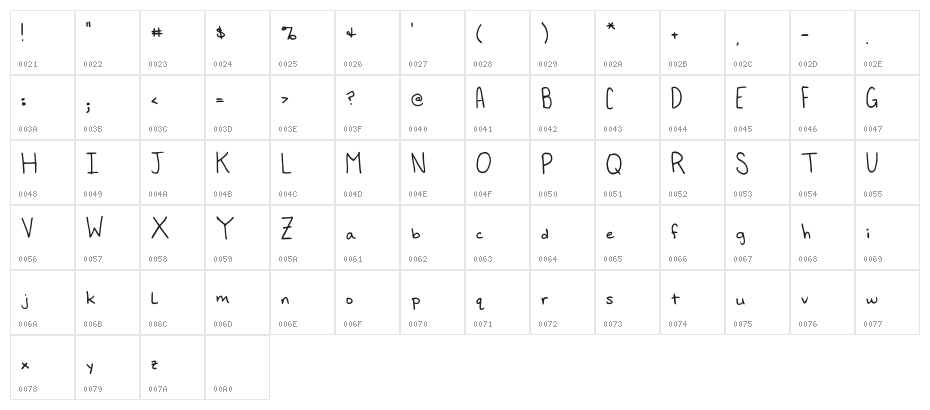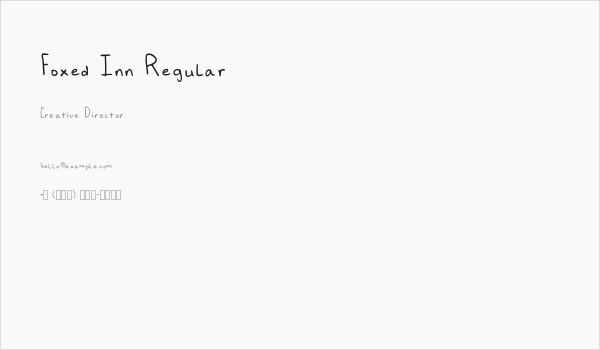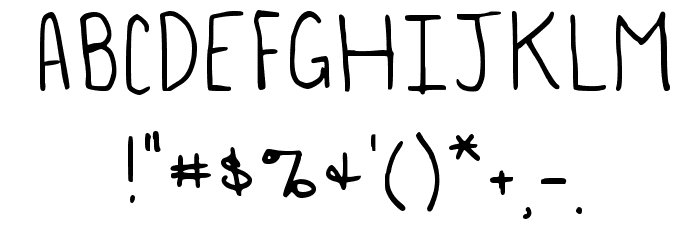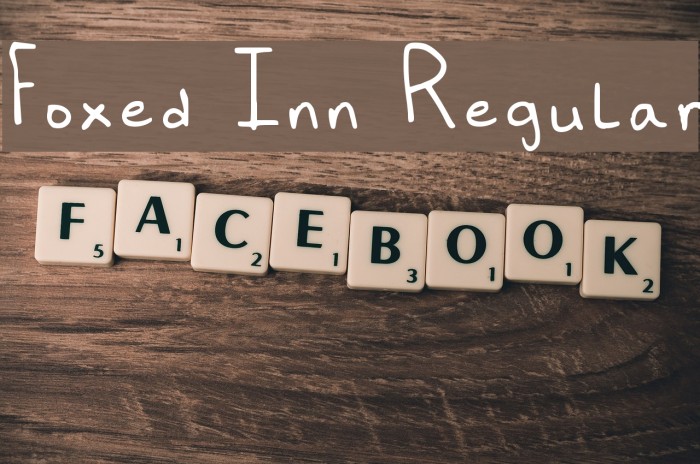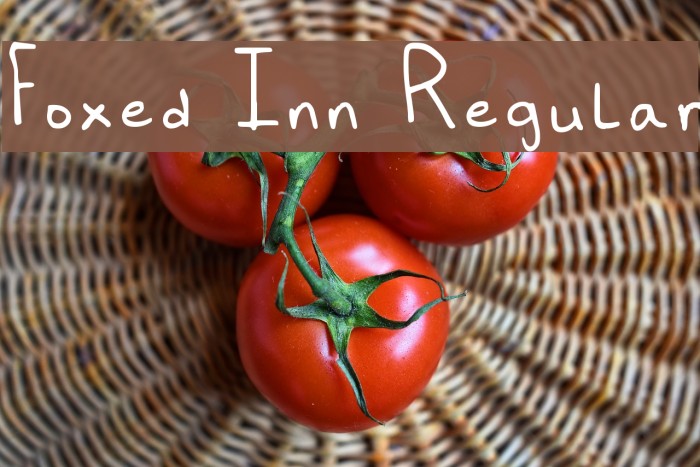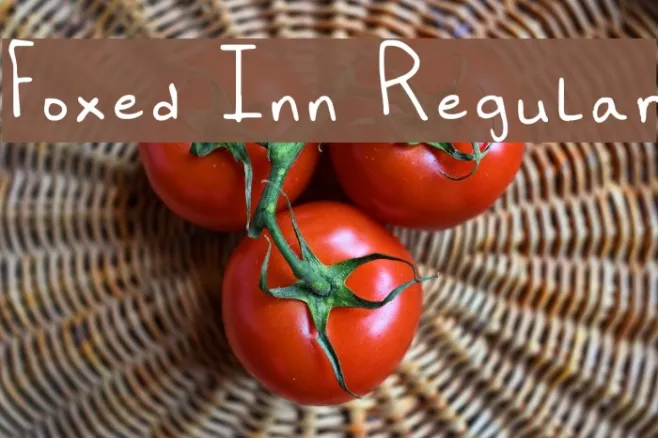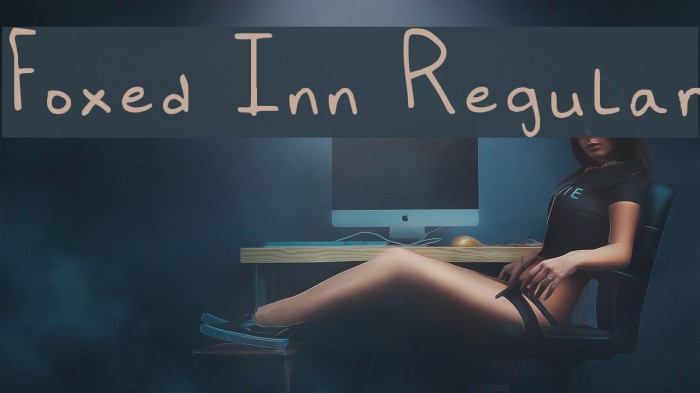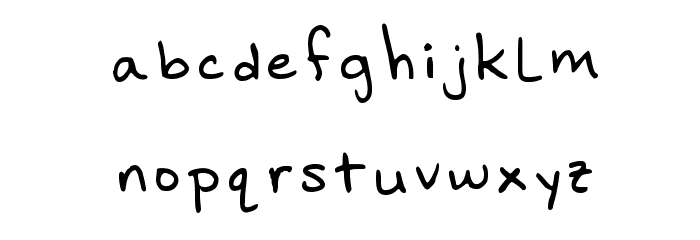
Foxed Inn Regular Font
Foxed Inn Regular Description
This font exudes a playful and informal vibe, characterized by its hand-drawn appearance. The letters are slightly irregular, giving it a whimsical and approachable feel. The strokes are consistent in width, providing a uniform look despite the casual style. The uppercase and lowercase letters are well-balanced, with a slight tilt that adds to the charm. The numerals and special characters maintain the same playful aesthetic, making it suitable for creative projects. The overall design is clean yet quirky, perfect for adding a personal touch to any text.
| Proposed Projects | Ideal for children's books, greeting cards, casual branding, and creative posters. |